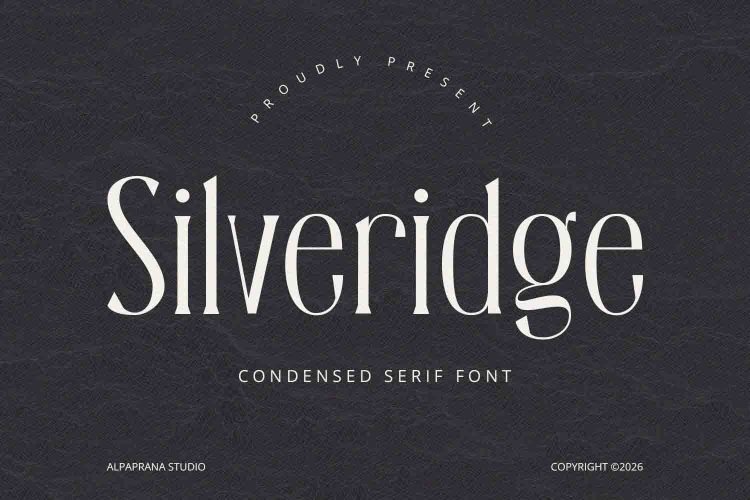
Silveridge – Condensed Serif Font
Silveridge – Condensed Serif Font is a flexible and reliable font created to fit multiple design needs, from branding and packaging to social media and editorial layouts. Silveridge is display font with modern feels. It will be perfectly used for Branding, Logo Design, Lettering, Logotype, Clothing, Poster, magazine, packaging, posters, shopping bags, t-shirts, book covers, photography, special events and other design project.
Designer: Alpaprana